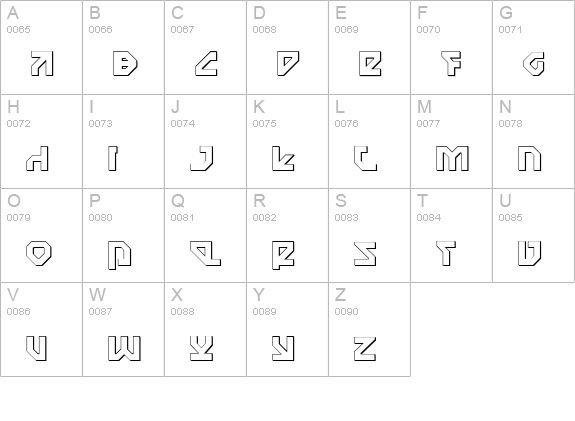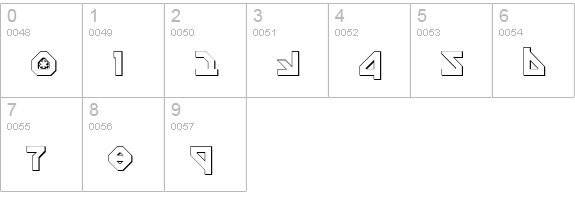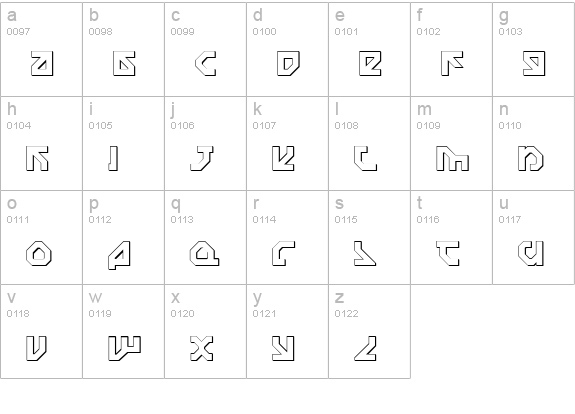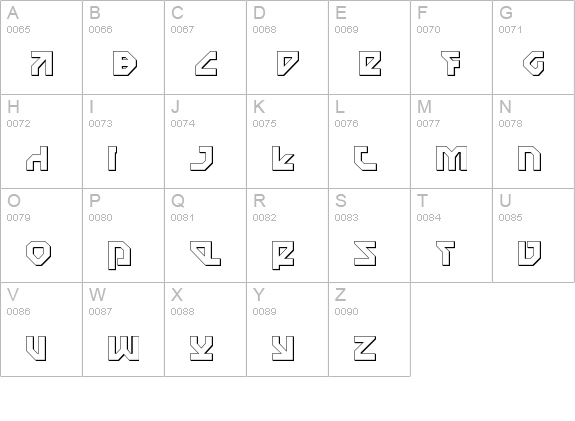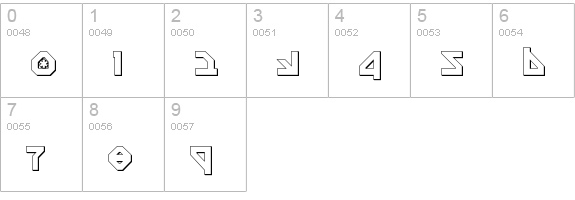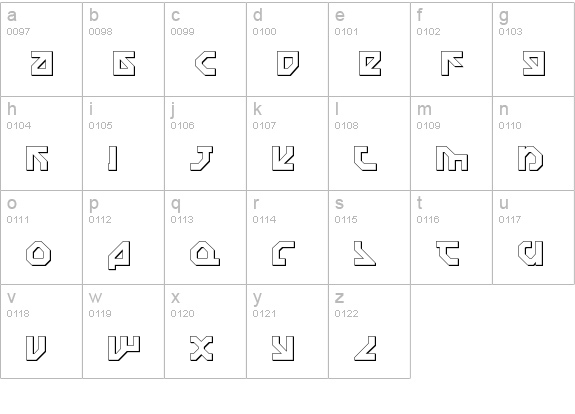
Introducing Nostromo 3D font - a striking and dynamic typeface that will elevate your designs to a whole new level! This futuristic font features sleek and intricate 3D elements that add depth and dimension to any project. Perfect for creating eye-catching titles, logos, posters, and more, Nostromo 3D font is sure to make a lasting impression. The best part? Nostromo 3D font is completely free to download at FontsMarket.com! Simply head over to the website and grab this amazing font to add a touch of modern sophistication to your designs. Don't miss out on this opportunity to enhance your creative projects with the unique style of Nostromo 3D font. Download it today and let your creativity soar!